Monospace Font: A Complete Guide to Its Features and Uses
Exploring the Practical Applications and Benefits of Monospace Fonts in Design, Writing, and Code
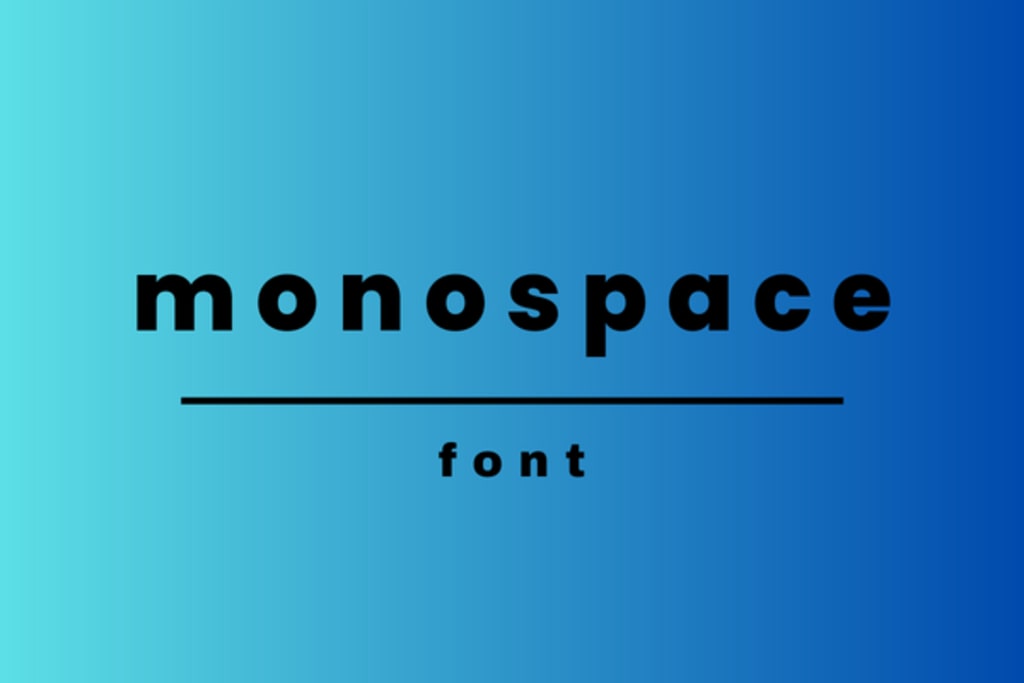
Monospace fonts are a unique and functional category of fonts that are commonly used in coding, writing, and even design. These fonts have a fixed width for each character, meaning that every letter or symbol occupies the same amount of space. In contrast to proportional fonts, where the width of each character can vary, monospace font provides a uniform appearance that can be particularly useful in certain contexts.
What is a Monospace Font?
A monospace font is a type of font in which each character, whether it's a letter, number, or punctuation mark, takes up the same amount of space. This contrasts with proportional fonts, where the width of characters varies (for example, an "i" is narrower than an "m"). The uniform spacing of monospace fonts creates a clean, organized layout, which is why they are often favored in programming, typesetting, and certain design contexts.
Characteristics of Monospace Fonts:
- Equal spacing: Every character has the same width, which makes it visually uniform.
- Clear alignment: Monospace fonts are ideal for aligning text in columns, such as in programming code or tabular data.
- Simple, clean look: While not as decorative as some fonts, monospace fonts offer a straightforward and minimalistic aesthetic.
Some of the most well-known examples of monospace fonts include Courier, Consolas, and Inconsolata, which are frequently used in programming and text editors.
Key Uses of Monospace Fonts
1. Programming and Coding
The most prominent use of monospace fonts is in the world of programming and software development. When coding, it's essential for characters to line up perfectly in order to make the code readable and organized. Monospace fonts allow developers to spot errors quickly and ensure their code is clean and consistent.
In fact, most code editors, IDEs (Integrated Development Environments), and even online code playgrounds use monospace fonts by default. The uniform spacing helps maintain the structure of the code, making it easier to debug and collaborate with others.
2. Tabular Data and Spreadsheets
Another common use for monospace fonts is in tabular data, where alignment is crucial. Whether it’s a financial report, a technical specification, or any type of data that requires columns and rows, monospace fonts ensure that the data lines up neatly. By using a monospace typeface, numbers, and text in spreadsheets appear evenly spaced, helping users quickly interpret information.
3. Design and Typography
While not the most common choice for body text, monospace fonts can be used in design to create a retro, typewriter-inspired aesthetic. Designers might use monospace fonts in logos, posters, or web design to evoke a vintage or industrial feel. Furthermore, monospace fonts are sometimes employed in creative projects to emphasize text in specific sections or to add contrast to other elements.
4. Professional Book Writing Services
In professional book writing services, monospace fonts can play a vital role when formatting manuscripts or creating a structured layout for technical or non-fiction works. For instance, books that involve code, formulas, or tabulated data may benefit from the clarity and uniformity offered by monospace fonts. Many technical manuals, programming books, or guides use monospace fonts to present information in a structured and organized manner that is easy for readers to follow.
5. Affordable Book Promotion
While monospace fonts are not necessarily a tool for book promotion directly, their use in the formatting and presentation of a book can make it look more professional and readable. When self-publishing or using professional book writing services, the font style plays a role in the overall presentation. Books that incorporate clean formatting, including the strategic use of monospace fonts in relevant sections, can stand out in the market and enhance the reading experience.
Additionally, monospace fonts can be a powerful tool in marketing materials. For example, when promoting your book online or in print, incorporating monospace fonts in promotional material can create a clean and structured look that appeals to readers, especially in genres related to tech, design, or business. Affordable book promotion often involves highlighting your book's unique features—such as the use of a distinctive font—and ensuring it catches the reader's eye.
Benefits of Using Monospace Fonts
1. Enhanced Readability and Organization
The most significant benefit of monospace fonts is their ability to organize text. With each character taking up the same amount of space, the text becomes easier to read and scan. In coding, this is essential for identifying patterns, errors, and indentation issues. In other areas, such as creating structured content for a book or report, this uniformity helps ensure that content is clearly aligned and easy for readers to navigate.
2. Consistency Across Platforms
Monospace fonts offer excellent consistency, especially when working across different platforms and devices. Whether you’re reading on a tablet, laptop, or desktop, monospace fonts maintain their uniformity, ensuring that the content appears exactly the same regardless of the medium. This consistency is crucial for developers and designers who need to ensure their code or layouts are displayed properly across different environments.
3. Visual Appeal in Creative Projects
While monospace fonts are often seen as utilitarian, they can also be used in creative ways to enhance the visual appeal of a project. Designers often use them to add a modern, clean, and slightly vintage touch to their designs. Whether you're designing a website, promotional material, or even a book cover, monospace fonts can bring a unique aesthetic.
How Monospace Fonts Enhance Book Promotion and Writing
In affordable book promotion, it’s important to focus on every detail of your book’s presentation—this includes the font used. When working with professional book writing services, incorporating a monospace font in your book’s formatting can make certain sections stand out. This might include chapters with technical content, like coding or data, where readability is critical.
1. Technical Books and E-books
For technical books, coding manuals, or even e-books with data-driven content, monospace fonts are a must. They make these types of books more user-friendly and accessible, allowing readers to quickly follow along with instructions, diagrams, or code examples.
2. Promoting a Professional Image
When you hire professional book writing services, they often pay close attention to the formatting and aesthetic of your manuscript. By incorporating monospace fonts for specific sections, such as quotes, technical details, or highlighted information, the book maintains a polished, professional look. This attention to detail can help your book stand out during the affordable book promotion process, ensuring it appeals to your target audience.
Conclusion
Monospace fonts are an essential tool in the world of writing, coding, and design, offering unique advantages in readability, organization, and consistency. Whether you’re working on a technical book, a spreadsheet, or a creative project, monospace fonts provide a clean and structured aesthetic that enhances the final product.